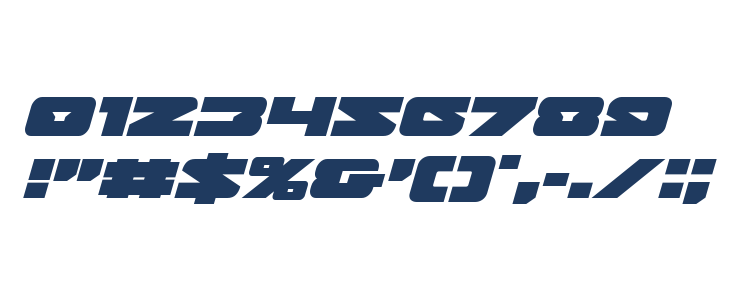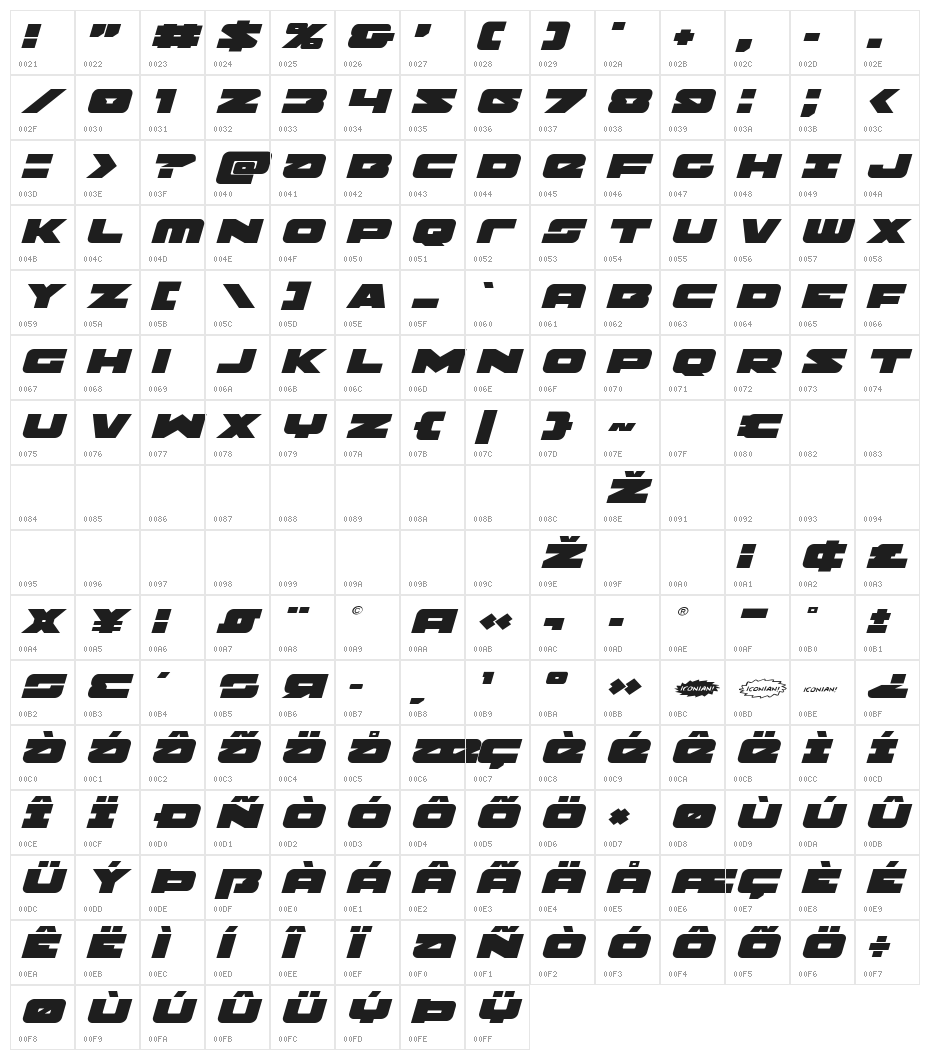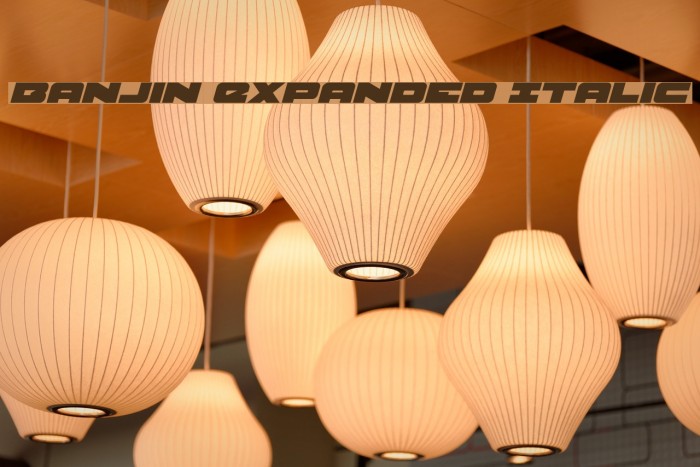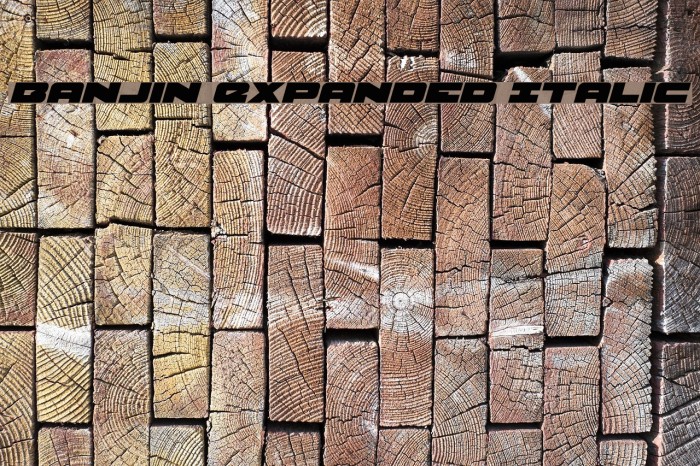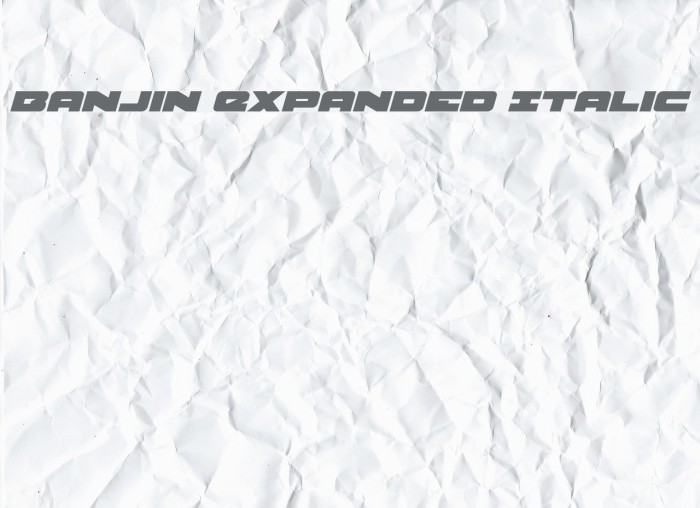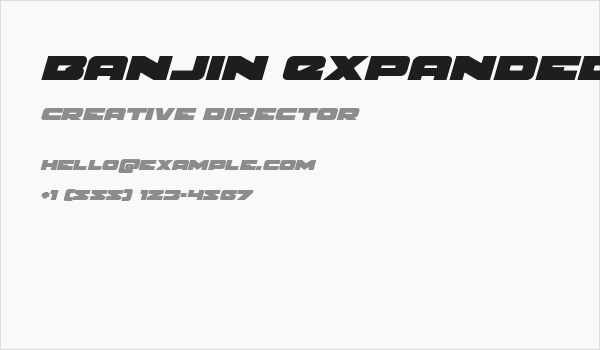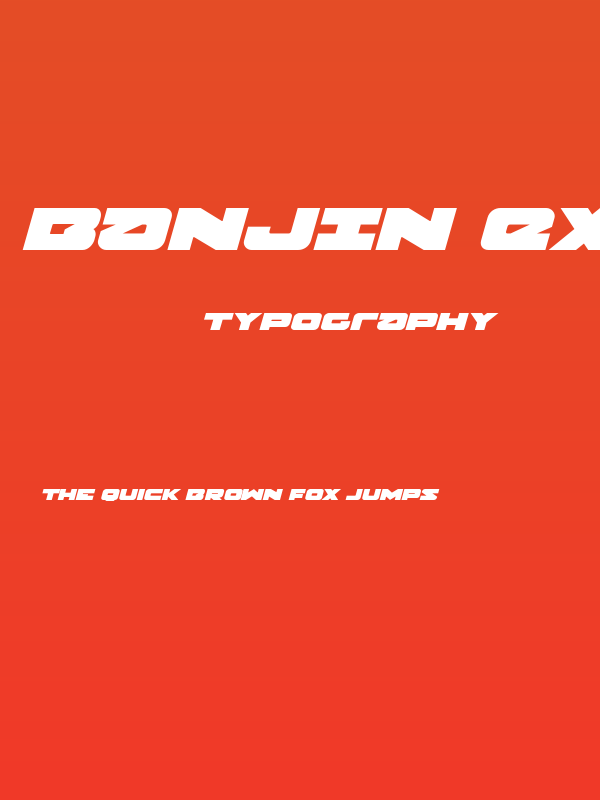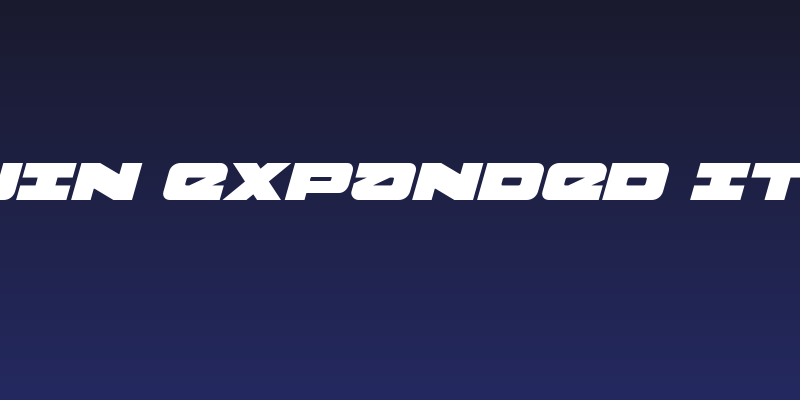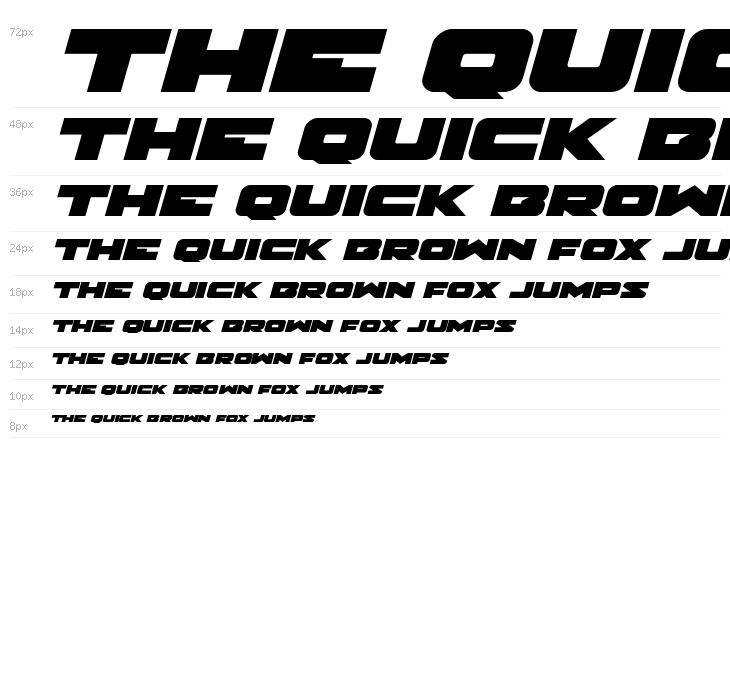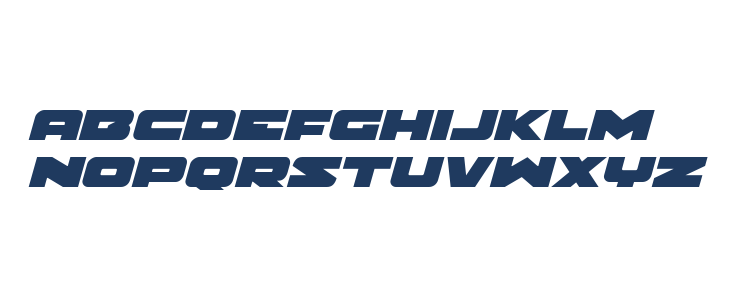
Banjin Expanded Italic Font
Banjin Expanded Italic Description
This font features a bold and dynamic style with an expanded width and italic slant, giving it a strong presence. The characters are designed with sharp angles and a futuristic aesthetic, making it ideal for projects that require a modern and edgy look. The uppercase and lowercase letters maintain a consistent style, with wide strokes and a slight forward tilt, enhancing the sense of motion. The numerals and special characters are equally bold, ensuring uniformity across all text elements. This font is perfect for attention-grabbing headlines, logos, and branding materials that aim to convey a sense of innovation and forward-thinking.
| Proposed Projects | Ideal for futuristic branding, tech-related logos, and dynamic headlines. |